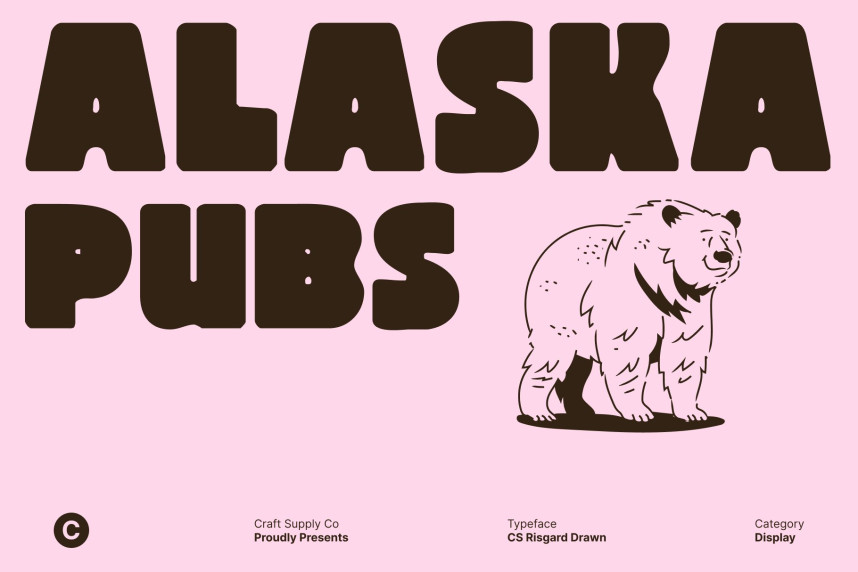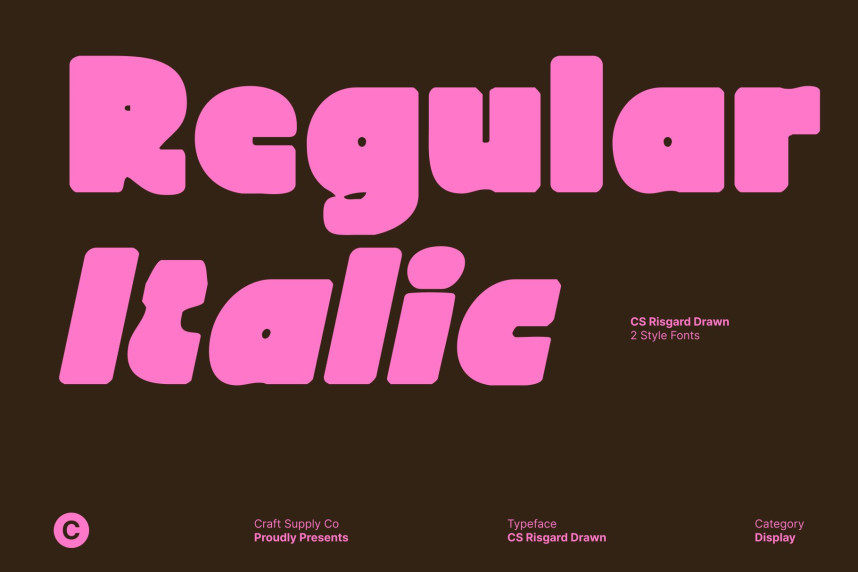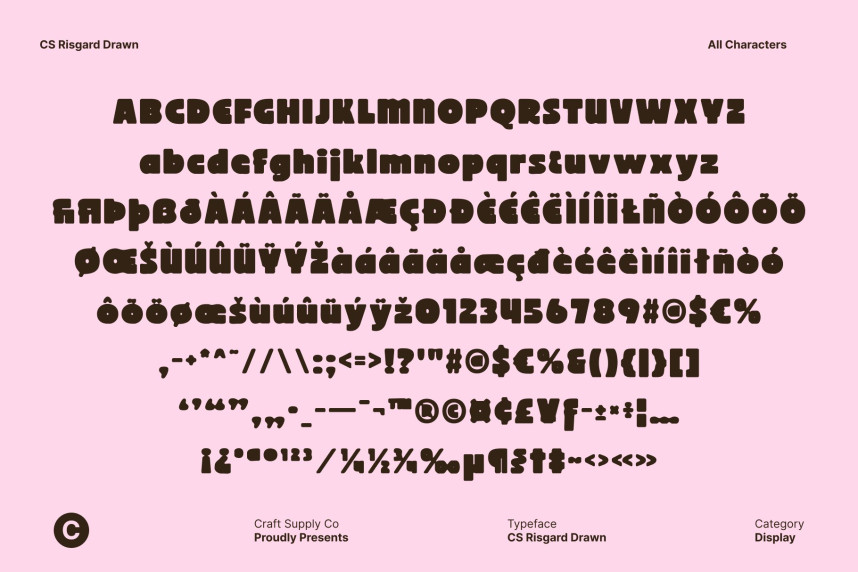
CS Risgard Drawn Font
CS Risgard Drawn Font – Bold Modern Sans Serif with Funky Energy Strong Shapes with Modern Confidence. This is a modern sans serif font defined by bold, clean, and confident forms, enhanced by a distinctive drawn effect. Each letter is crafted with precision while retaining subtle handcrafted imperfections, creating a strong sense of balance, impact, and contemporary visual power.